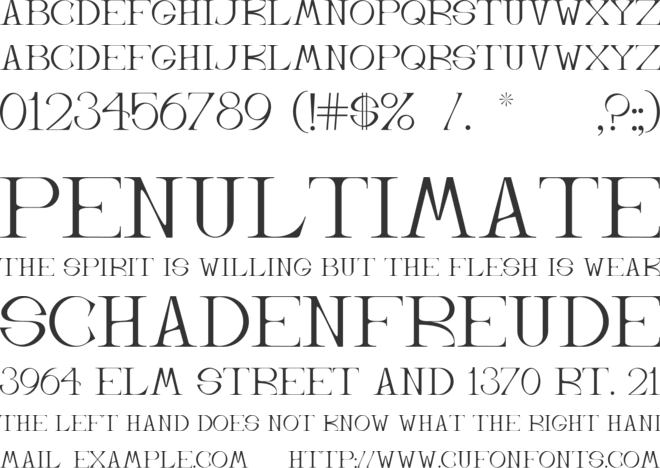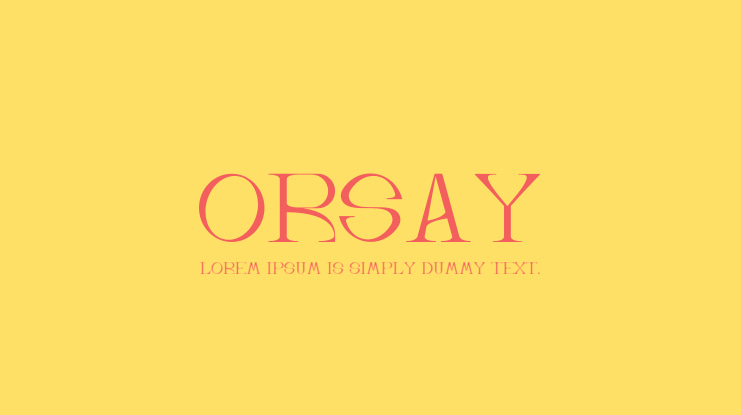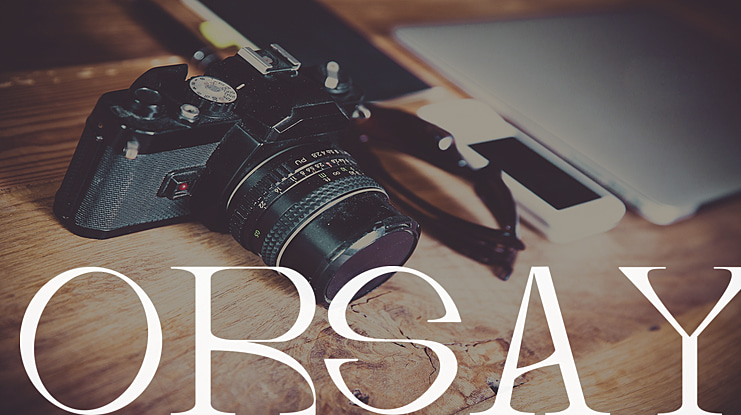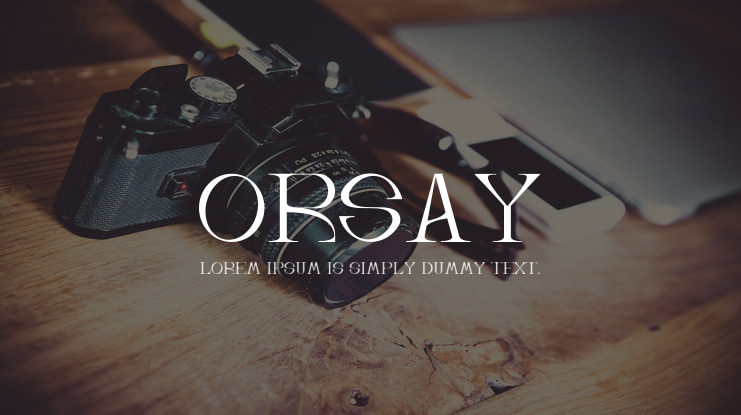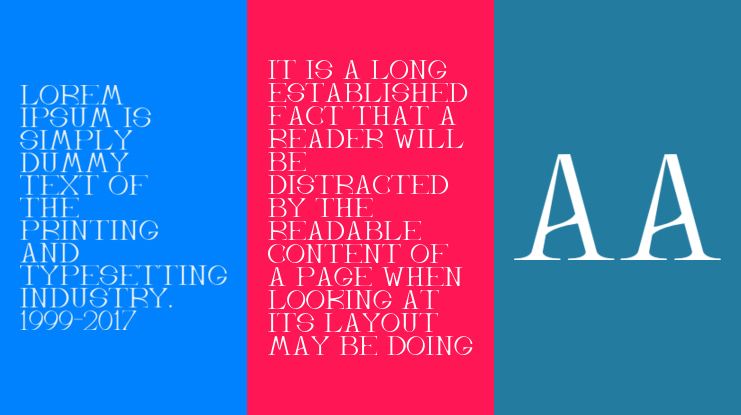
Orsay Font
Hugo Nicaise
It’s a fantasy beauty vintage typeface crafted & designed by Hugo Nicaise. ORSAY font is Good for projects such as logo design, branding, web design, packaging, social media, and so much more! Add it confidently to your favorite creations and let yourself be amazed by the outcome generated.